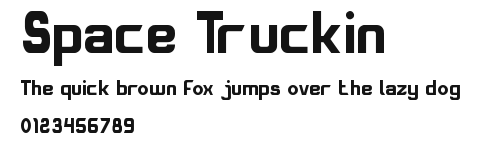
Space Truckin Preview
• Font Name: Space Truckin
• Font ID: Space Truckin:Version 1.00
• Full Font Name: Space Truckin
• Version: Version 1.00 January 14, 2014, initial release
• PostScript Name: SpaceTruckin
About Space Truckin.ttf
Space Truckin.ttf is a modern, elegant sans-serif font designed for ultimate readability and visual harmony. Perfect for branding, headlines, web design, and print materials.